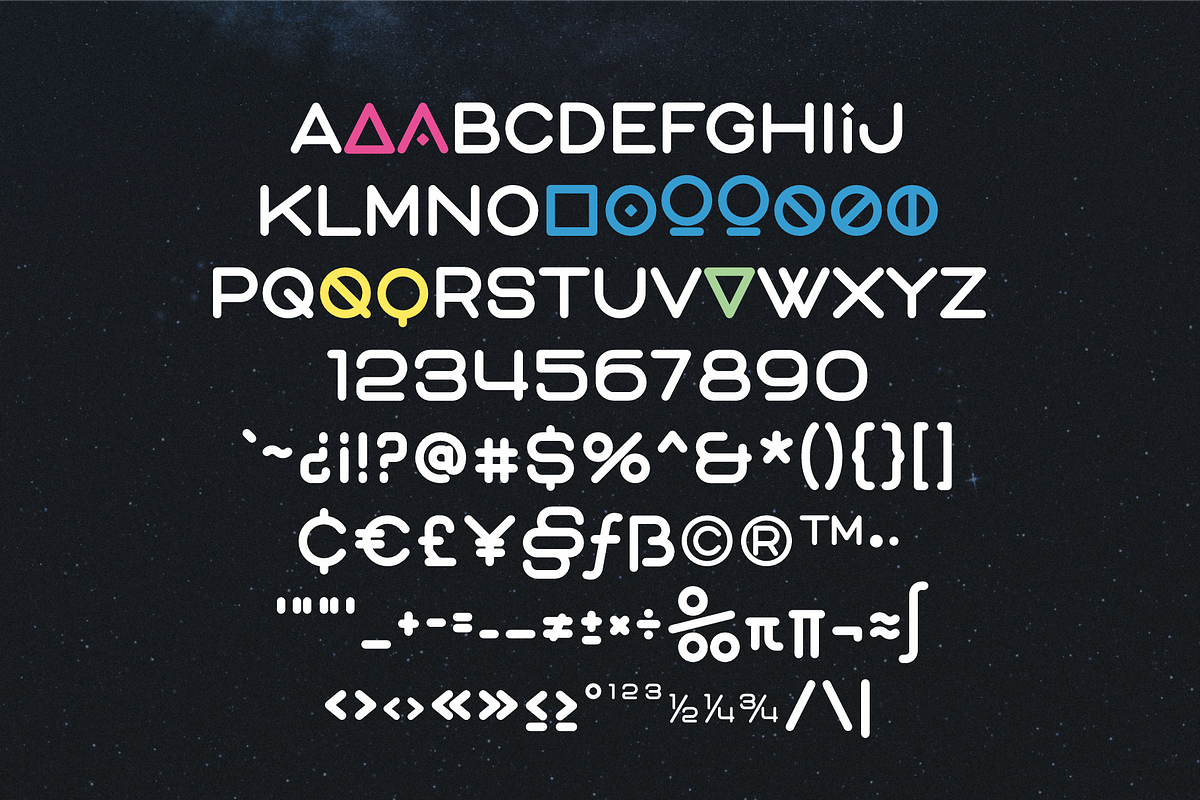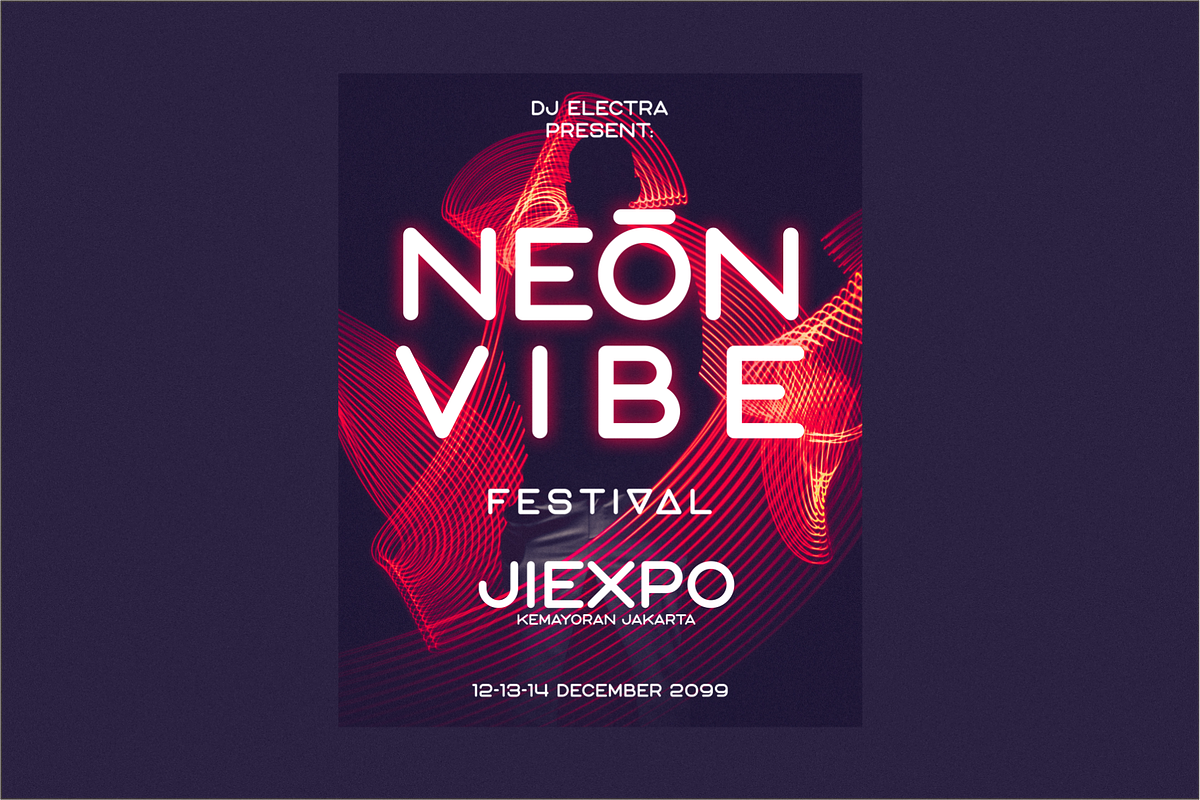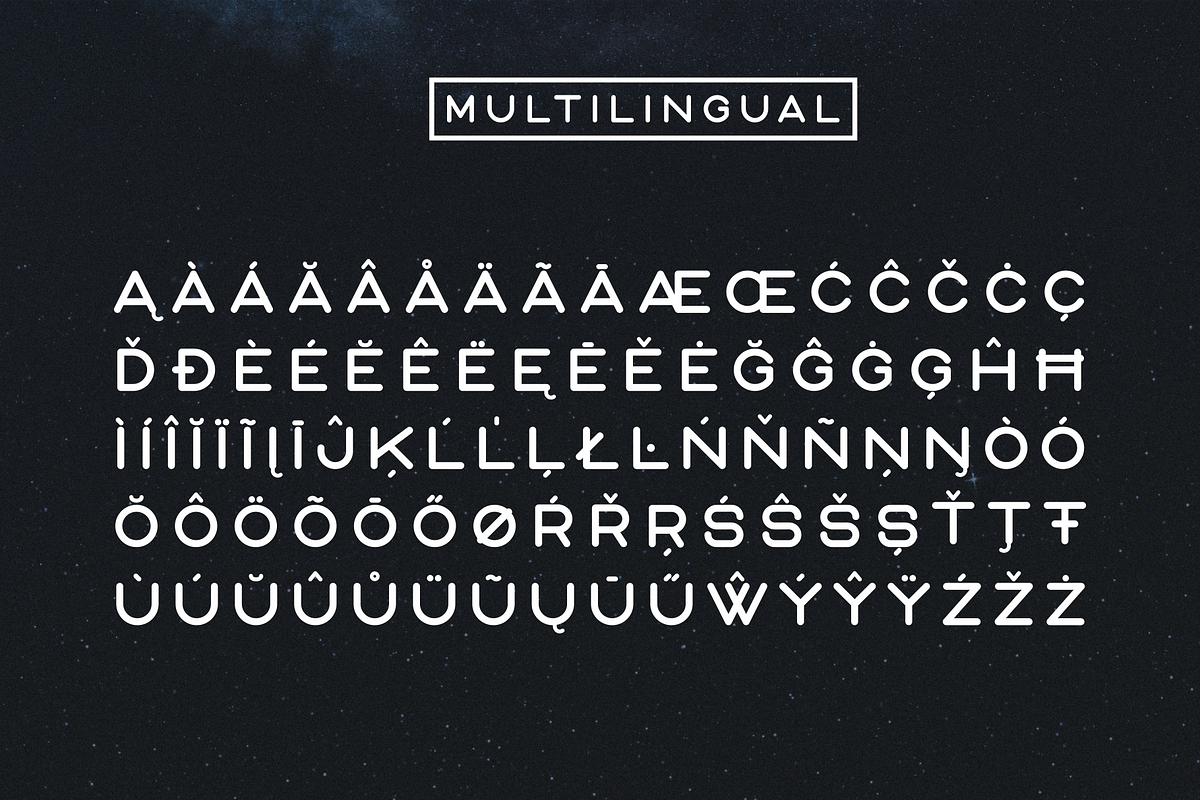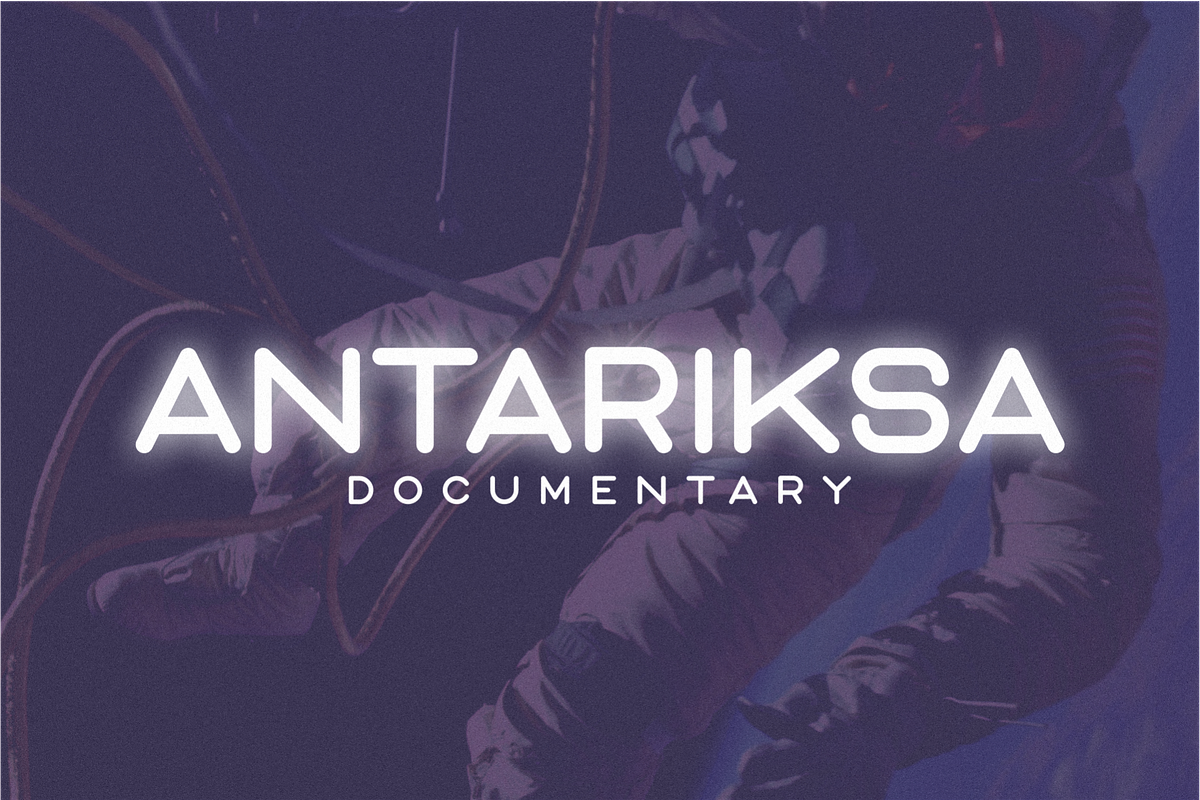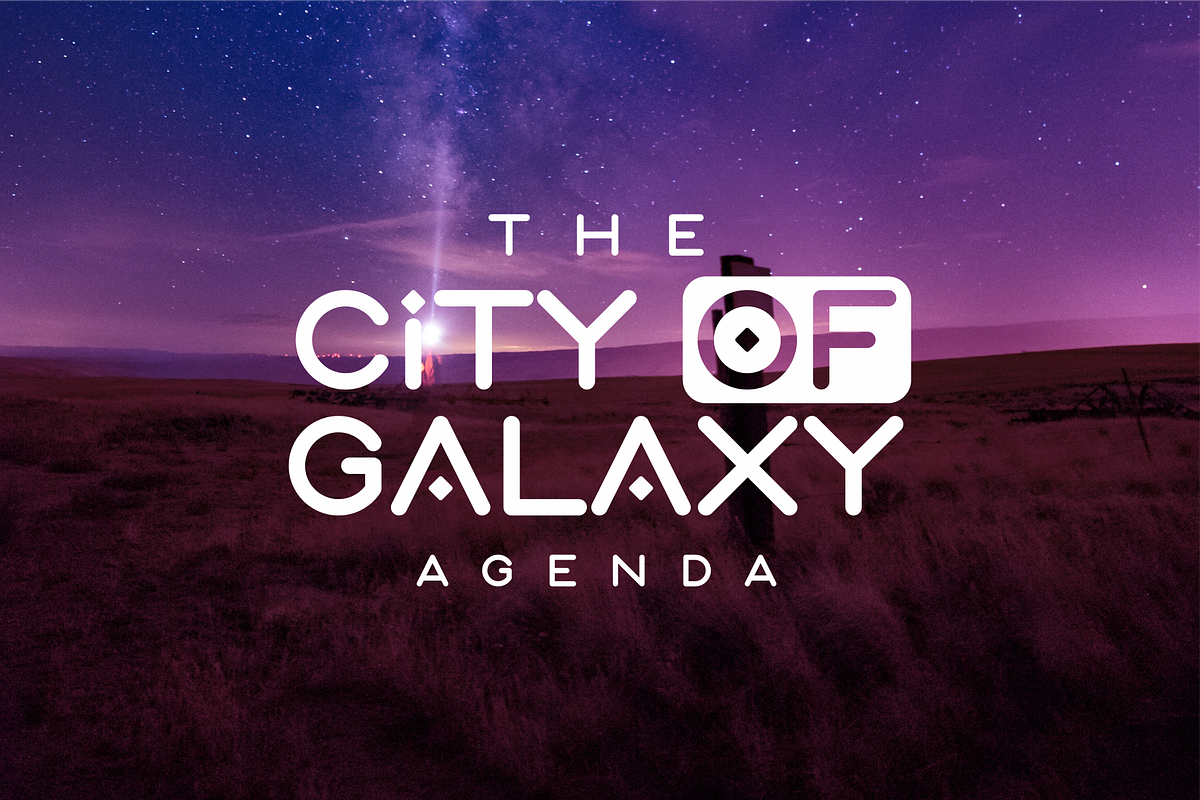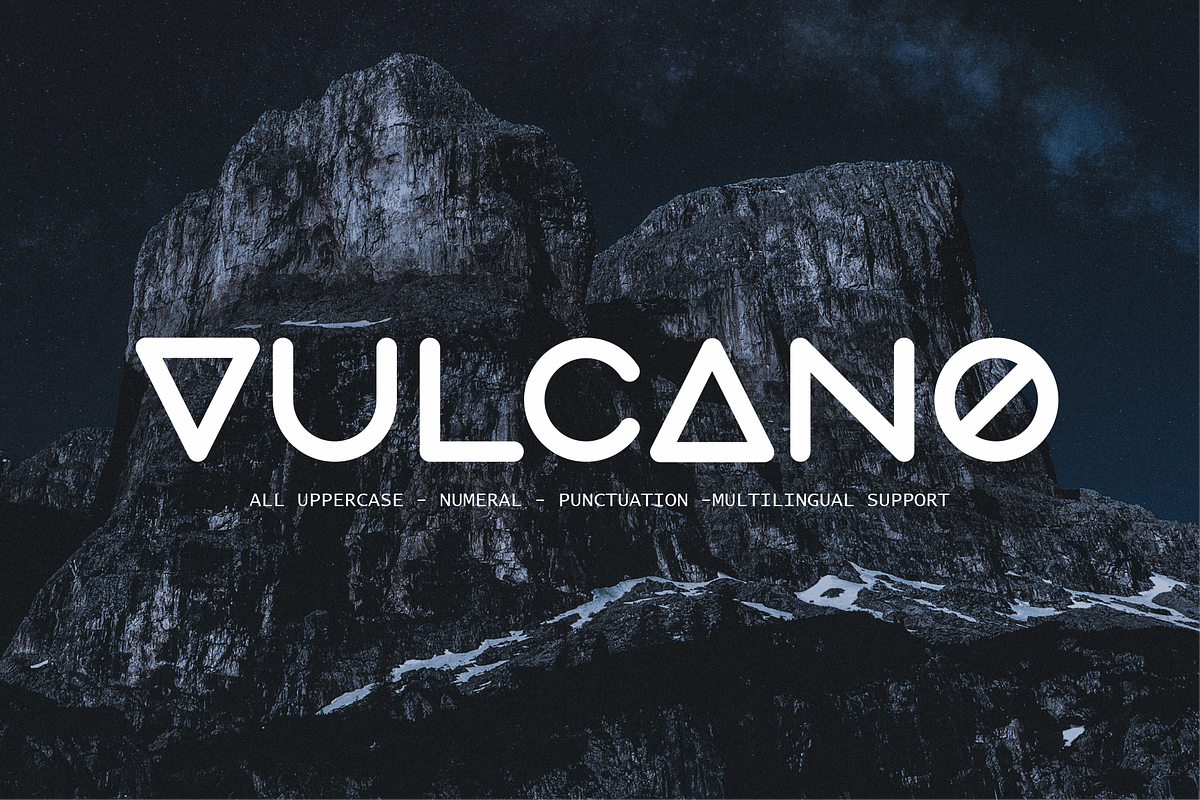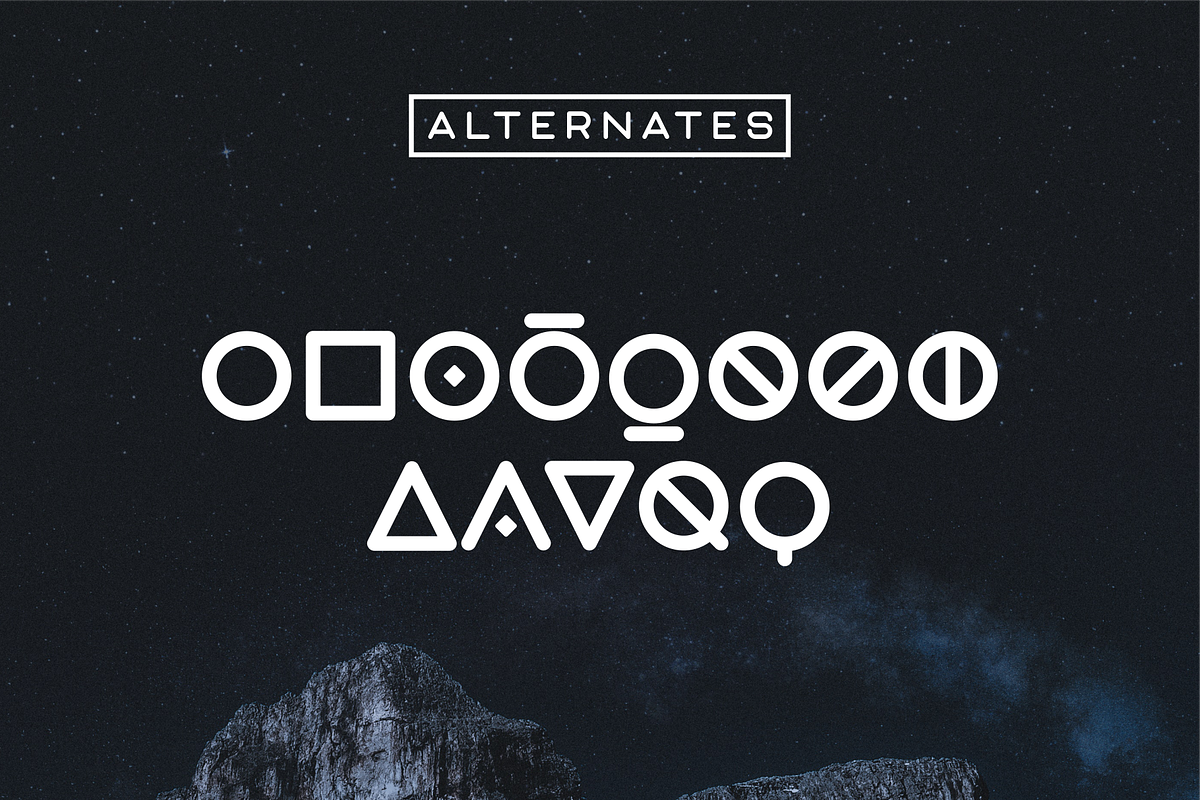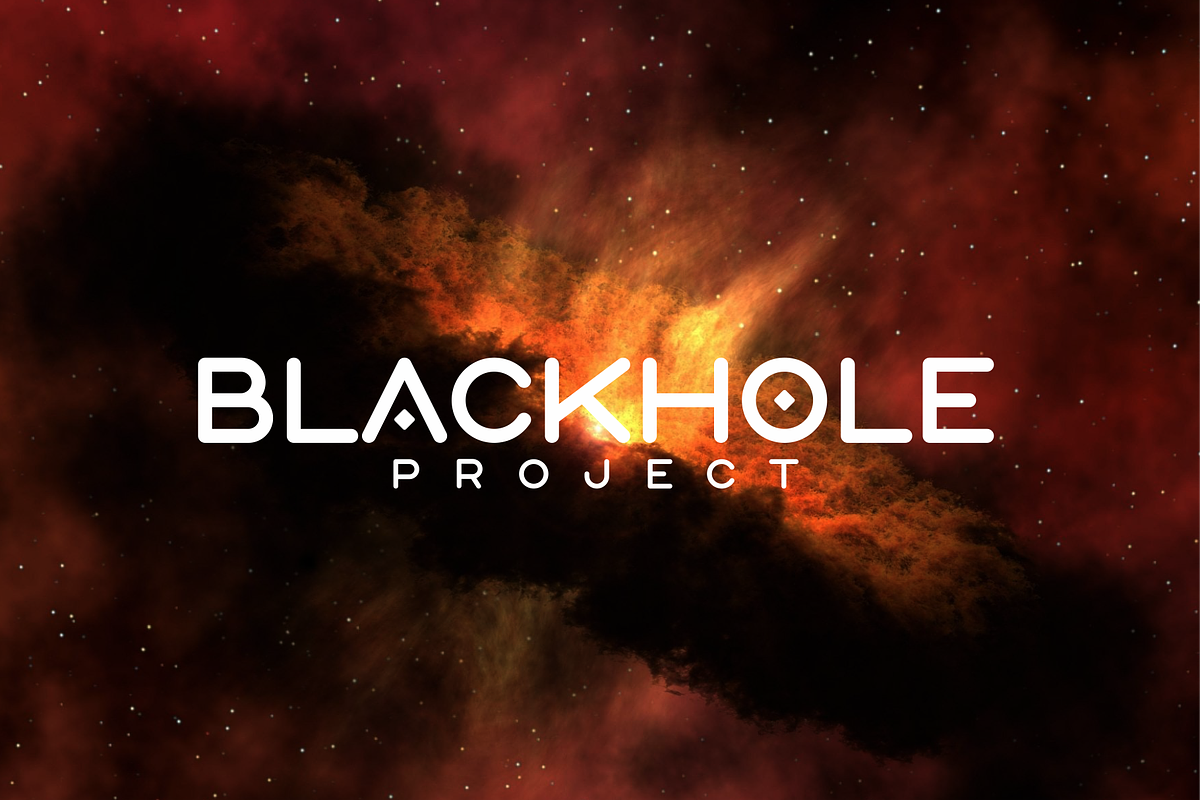
Vulcano Display Font
Volcano is futuristic fonts with a modern sci-fi impression but still simple so it looks quite clean and attractive with the support of several alternate fonts. Suitable for any logo design, subtitles, book titles, and etc.
- Features:
- Number
- All Uppercase
- Multilingual support
- Punctuation
- Alternates